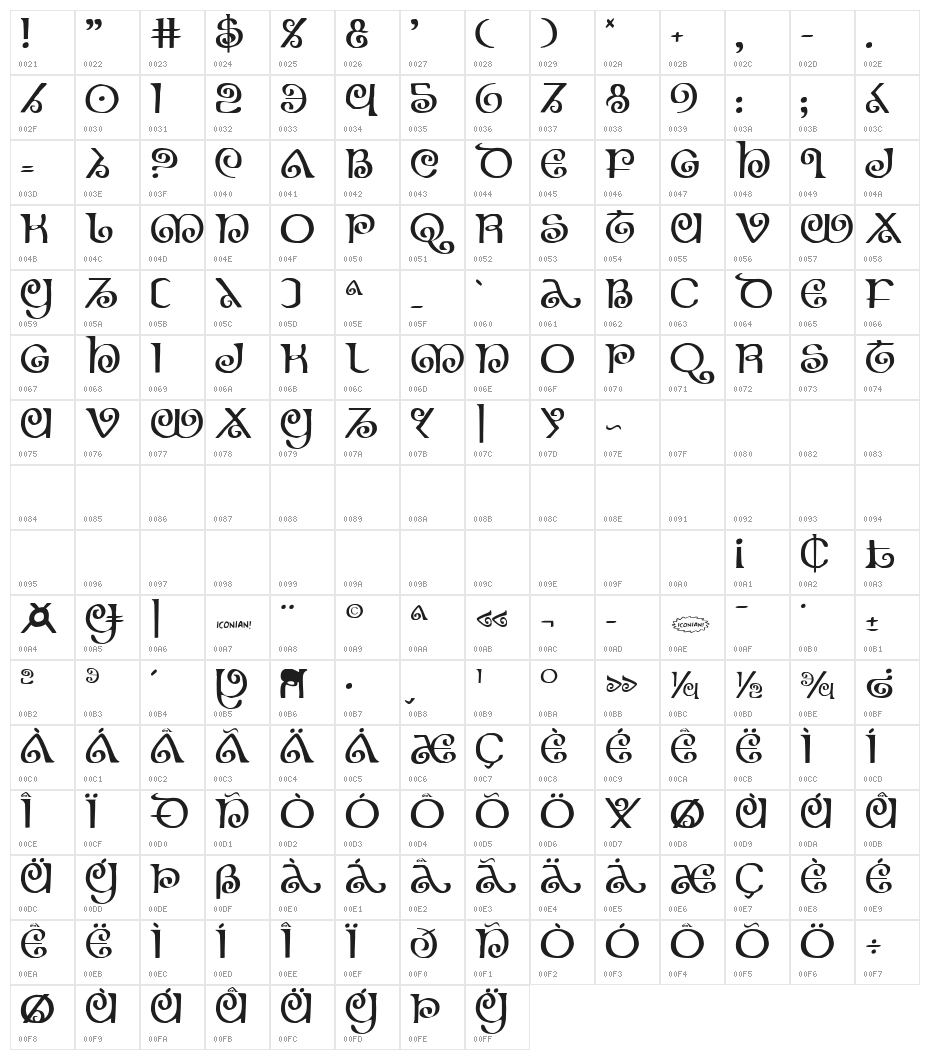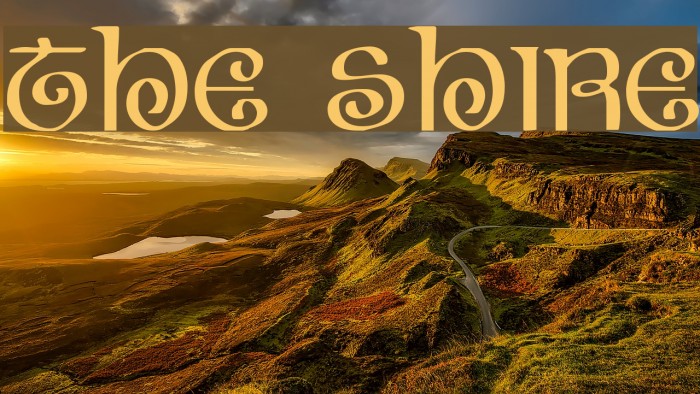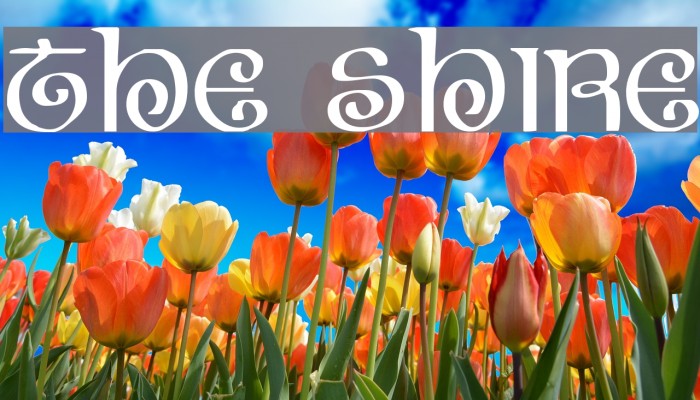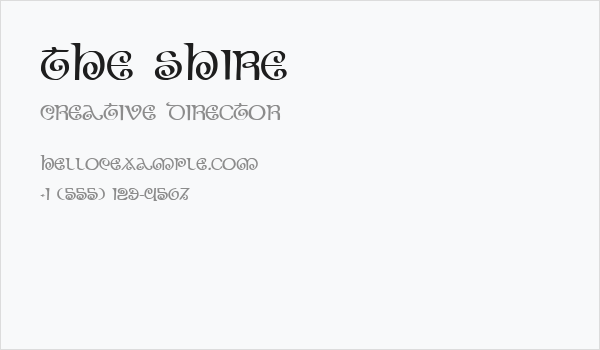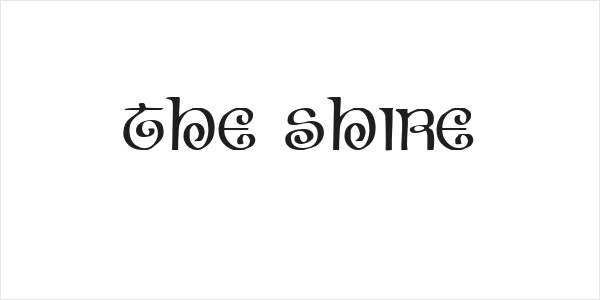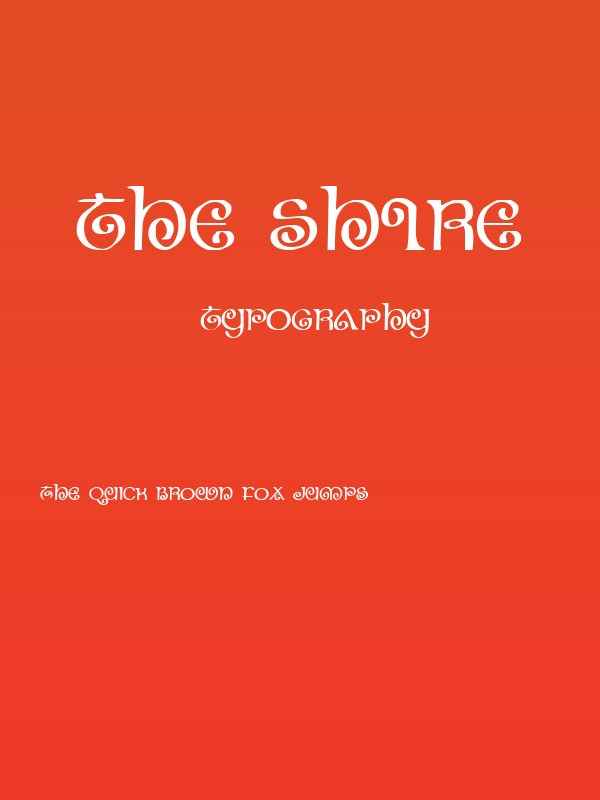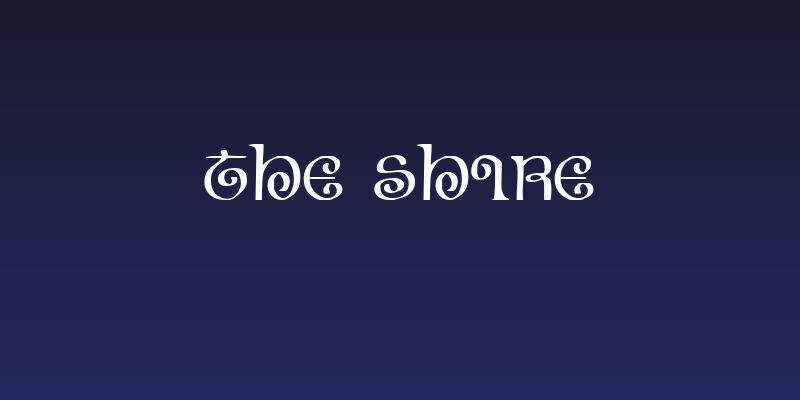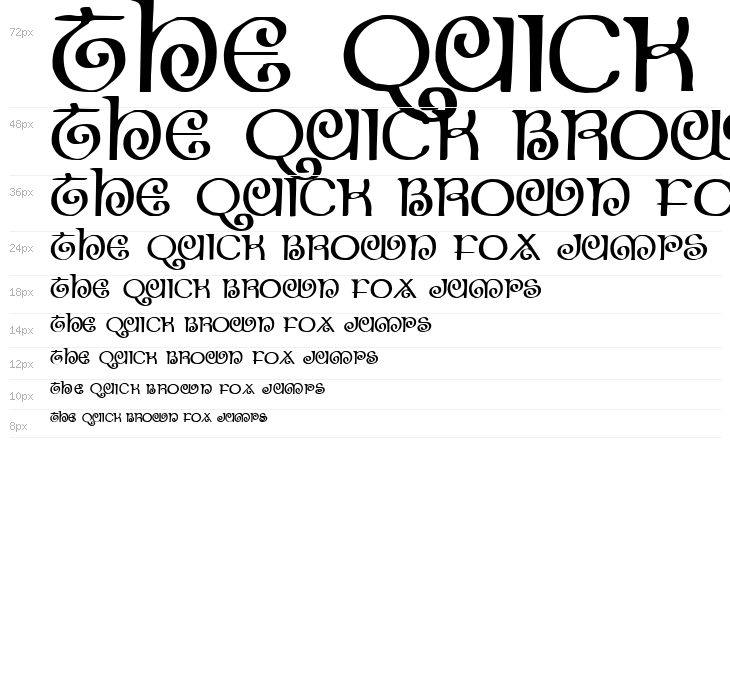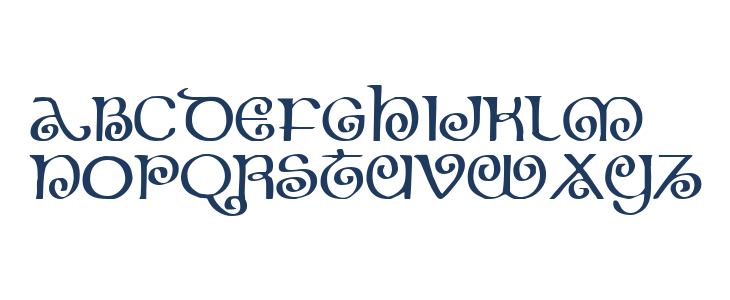
The Shire Font
The Shire Description
This font features a whimsical and decorative style, characterized by its intricate swirls and curls that embellish each letter. The uppercase and lowercase letters maintain a consistent design, with a playful yet elegant flair. The numerals and special characters are equally ornate, adding a touch of fantasy and charm. The overall appearance is reminiscent of a fairy tale or fantasy theme, making it ideal for projects that require a magical or storybook feel. The strokes are bold, with medium contrast, ensuring readability while maintaining its decorative nature.
| Use Case | Headlines, Logos, Decorative text |
| Proposed Projects | Perfect for fantasy-themed projects, storybook titles, invitations, and decorative posters. |